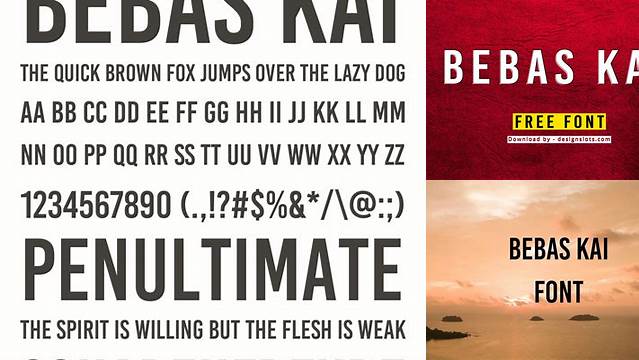
Hey guys! Ever stumbled upon a font that just screams modern and sleek? Chances are, you've seen Bebas Kai floating around. This font is a total game-changer for designers and creatives. It's clean, it's bold, and it's super versatile. So, let's dive into everything you need to know about Bebas Kai, including how to snag it for free and make the most of it in your projects.
What is Bebas Kai Font?
Bebas Kai is a sans-serif font known for its clean lines and tall, narrow characters. Designed by Ryoichi Tsunekawa, it's part of the Bebas Neue family, but with its own unique twist. It exudes a sense of modernity and sophistication, making it a favorite for headlines, posters, and branding materials. The Bebas Kai font family is a modified version of Bebas Neue which is a popular typeface designed by Ryoichi Tsunekawa. Bebas Kai maintains the tall, condensed sans-serif style of its predecessor but has unique modifications that give it a distinct character. Its clean lines and geometric shapes make it versatile for various design applications, particularly headlines, logos, and posters. The Bebas Kai font provides a modern and sleek aesthetic that is both eye-catching and readable, ensuring that your designs stand out while remaining professional and accessible. The font's design characteristics make it suitable for various digital and print media, enhancing the visual appeal of your projects and ensuring a consistent and impactful visual experience. Furthermore, the distinct attributes of Bebas Kai make it an excellent choice for designers who want to convey a sense of modernity and sophistication in their work. The font is also highly legible, even at smaller sizes, which ensures that your message is effectively communicated across different platforms and mediums. Its adaptability to various design elements and layouts allows for creative flexibility, making it a valuable asset in any designer's toolkit.
Using Bebas Kai for Logos
Bebas Kai is a fantastic choice for logos, especially if you're going for a modern, minimalist vibe. Its clean lines make it easy to read and instantly recognizable. Try using it for a company name or slogan – it'll definitely make a statement. Incorporating a bebas kai font free download into your logo design can greatly enhance its visual appeal and brand recognition. The tall, narrow characters of Bebas Kai create a sense of verticality and sophistication, making it an excellent choice for businesses looking to project a modern and forward-thinking image. When using Bebas Kai in a logo, it's important to consider the overall composition and ensure that the font complements the other design elements, such as colors and graphics. Experiment with different font weights and styles to find the perfect balance that aligns with your brand's identity. In some cases, you may want to use Bebas Kai as the primary font for the entire logo, while in other cases, it may be more effective to use it sparingly, such as for the company name or tagline. Regardless of how you choose to use it, Bebas Kai can add a touch of elegance and professionalism to your logo, helping it stand out from the competition. Another advantage of using Bebas Kai in logos is its scalability. The font remains legible and visually appealing even at smaller sizes, making it suitable for use on business cards, websites, and social media profiles. This ensures that your brand's logo maintains its impact and clarity across different platforms and mediums. Additionally, Bebas Kai's clean and geometric design makes it easy to integrate into various logo styles, from minimalist and abstract to more complex and illustrative designs.
Bebas Kai in Web Design
In web design, Bebas Kai can add a touch of sophistication to your headers and titles. Its bold appearance draws the eye and makes your content stand out. Just be mindful not to overuse it – a little goes a long way. When incorporating a bebas kai font free download into web design, it's crucial to optimize its usage to enhance user experience and visual appeal. Bebas Kai's tall, condensed characters make it ideal for headlines and titles, where its bold presence can effectively grab the attention of visitors. However, due to its unique proportions, it's generally not recommended for body text, as it can impact readability. For body text, consider pairing Bebas Kai with a more conventional and legible font, such as Open Sans or Roboto. When using Bebas Kai for web design, ensure that you properly implement CSS styles to control its appearance and behavior across different devices and screen sizes. Pay attention to font size, line height, and letter spacing to maintain optimal readability and visual harmony. Additionally, consider using CSS media queries to adjust the font's size and style based on the screen resolution of the user's device, ensuring a consistent and responsive design. Another important factor to consider is the font's loading time. Since Bebas Kai is a custom font, it needs to be downloaded by the user's browser, which can potentially slow down the loading speed of your website. To mitigate this, optimize the font files by using compression techniques and consider using a content delivery network (CDN) to serve the font files from a server that is geographically closer to the user. By optimizing its usage and ensuring proper implementation, Bebas Kai can greatly enhance the visual appeal and user experience of your website.
Bebas Kai for Posters and Flyers
Got a poster or flyer to design? Bebas Kai is your go-to font for making a statement. Its strong, clean lines ensure your message is loud and clear. Plus, it looks super modern and eye-catching! Utilizing a bebas kai font free download for posters and flyers can significantly elevate their design and effectiveness. Bebas Kai's bold and condensed style makes it perfect for headlines and titles, allowing your message to stand out and grab attention quickly. Its clean lines and modern appearance add a touch of sophistication, making your posters and flyers look professional and visually appealing. When designing posters and flyers with Bebas Kai, consider using it in conjunction with other design elements, such as images, colors, and graphics, to create a cohesive and impactful visual composition. Experiment with different font sizes, weights, and styles to find the perfect balance that complements your overall design concept. In some cases, you may want to use Bebas Kai as the primary font for the entire poster or flyer, while in other cases, it may be more effective to use it sparingly, such as for the main headline or call to action. Regardless of how you choose to use it, Bebas Kai can greatly enhance the visual impact of your posters and flyers, helping you effectively communicate your message to your target audience. Another advantage of using Bebas Kai for posters and flyers is its versatility. The font can be easily adapted to various design styles and themes, from minimalist and modern to bold and colorful. This makes it a valuable asset for designers working on a wide range of projects, ensuring that their designs always look fresh and professional. Additionally, Bebas Kai's clean and legible design ensures that your message remains clear and easy to read, even at a distance.
Bebas Kai Font Pairing: What Works Well
Pairing fonts can be tricky, but Bebas Kai plays well with others. For a classic look, try pairing it with a serif font like Times New Roman or Georgia. If you're after something more modern, go for a lighter sans-serif like Open Sans or Lato. When exploring font pairing options after obtaining a bebas kai font free download, it's essential to consider the visual harmony and overall aesthetic you wish to achieve. Bebas Kai, with its bold and condensed style, pairs well with fonts that offer contrast and balance. Serif fonts like Times New Roman or Georgia can create a classic and sophisticated look, while lighter sans-serif fonts such as Open Sans or Lato provide a more modern and clean feel. The key is to choose a font that complements Bebas Kai without overpowering it. For example, if you're using Bebas Kai for headlines, you might choose a simpler and more legible font for body text to ensure readability. Conversely, if you're using Bebas Kai sparingly, you can afford to be more adventurous with your font pairing choices. Experiment with different font combinations to find the perfect balance that aligns with your design concept. Consider factors such as font size, weight, and style to create a cohesive and visually appealing composition. In some cases, you may even want to use multiple fonts in your design, but it's important to do so sparingly to avoid creating a cluttered or confusing look. A good rule of thumb is to limit yourself to no more than three fonts per design. By carefully considering your font pairing options, you can create a visually stunning and effective design that effectively communicates your message.
Bebas Kai vs. Bebas Neue: What's the Difference?
While Bebas Kai is part of the Bebas Neue family, there are some key differences. Bebas Neue is a bit more rounded and has a slightly wider stance, while Bebas Kai is narrower and has sharper edges. Both are great, but Bebas Kai has a more modern and streamlined feel. Understanding the nuances between Bebas Kai and Bebas Neue after completing a bebas kai font free download is crucial for making informed design choices. While both fonts share a similar condensed sans-serif style, there are subtle differences that can significantly impact the overall look and feel of your design. Bebas Neue is characterized by its slightly rounded corners and wider proportions, giving it a more friendly and approachable appearance. Bebas Kai, on the other hand, features sharper edges and narrower proportions, lending it a more modern and sophisticated aesthetic. The choice between the two fonts depends on the specific requirements of your project. If you're looking for a font that is versatile and easy to read, Bebas Neue might be the better option. However, if you're aiming for a sleek and contemporary design, Bebas Kai could be the perfect choice. Consider the overall tone and message of your design when making your decision. In some cases, you may even want to use both fonts in the same project, but it's important to do so carefully to avoid creating a cluttered or inconsistent look. A good approach is to use Bebas Neue for body text and Bebas Kai for headlines, or vice versa. By understanding the unique characteristics of each font, you can effectively leverage their strengths to create a visually stunning and impactful design.
Bebas Kai Font Styles: Weights and Variations
Bebas Kai typically comes in one weight – regular. However, you can play around with faux bolding and italics in design software to create variations. Just be careful not to overdo it! The available styles and variations for Bebas Kai, even after a bebas kai font free download, can influence its application in design projects. While Bebas Kai is primarily available in a regular weight, designers can explore creative alternatives to introduce variations and emphasize specific elements. Faux bolding, a technique where the font is artificially thickened using design software, can provide a stronger visual presence for headlines or key phrases. Similarly, applying faux italics can add a subtle slant to the text, creating emphasis or a sense of movement. However, it's crucial to exercise caution when using these techniques, as excessive faux bolding or italics can distort the font's original design and negatively impact readability. Instead of relying solely on faux styles, consider using different font sizes or weights within the Bebas Kai family, if available, to create visual hierarchy and contrast. Additionally, you can experiment with letter spacing and line height to further refine the appearance of the text. In some cases, it may be necessary to explore alternative fonts that offer a wider range of weights and styles to achieve the desired effect. By carefully considering the available styles and variations and using them judiciously, designers can effectively leverage Bebas Kai to create visually appealing and impactful designs.